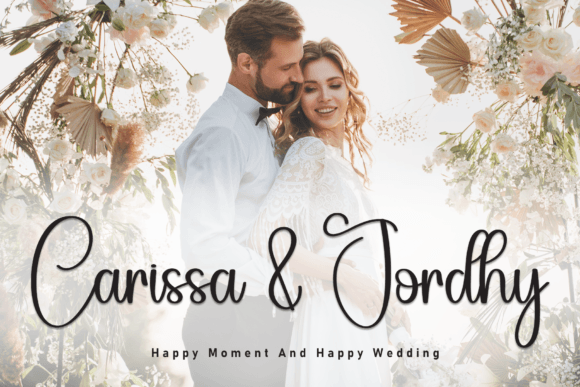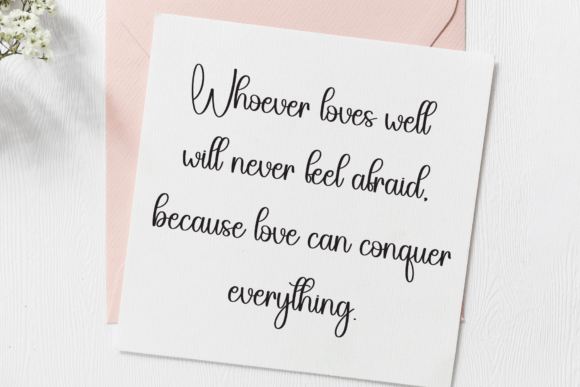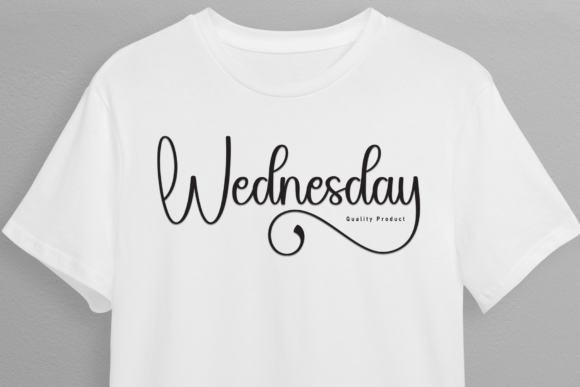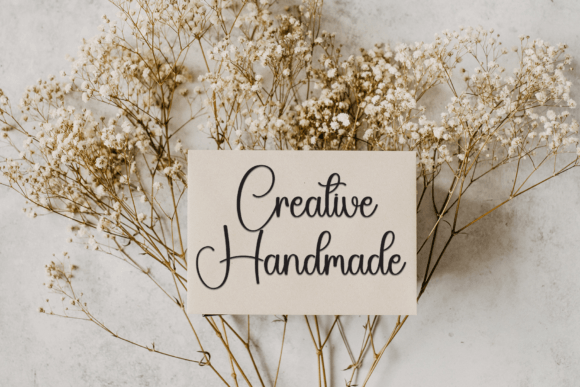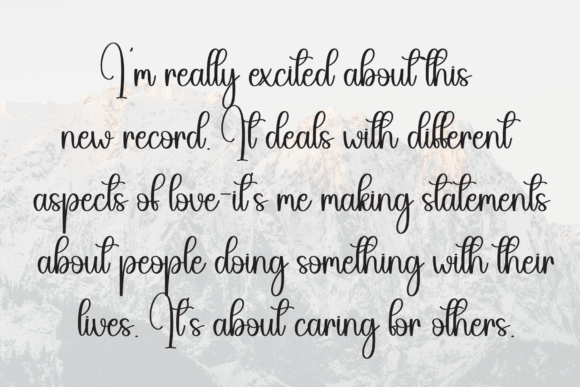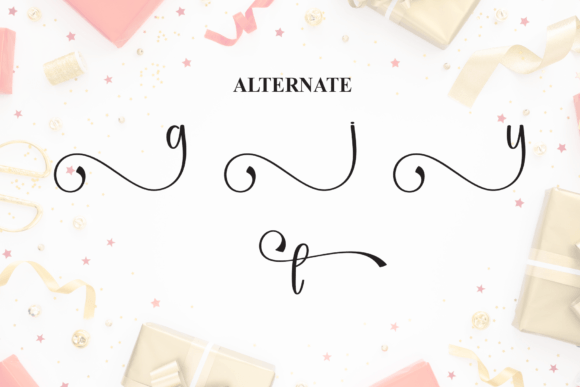
Introducing Birthday Font: The Sweet and Delicate Handwritten Font for Your Special Occasions
Are you a designer or crafter looking for the perfect font to add a touch of romance and personalization to your wedding invitations, cards, or other designs? Look no further than Birthday Font, a sweet and delicate handwritten font that’s sure to make your creations stand out.
What Makes Birthday Font So Special?
Birthday Font is a dainty and joyful font that’s perfect for anyone looking to add a romantic and personalized touch to their designs. Its delicate and cursive script makes it ideal for use on wedding invitations, cards, and other stationery. The font’s sweet and whimsical feel is sure to evoke emotions and create a lasting impression on your recipients.
- Handwritten script: Birthday Font is a beautiful handwritten font that’s designed to look like it was written with love and care.
- Delicate and dainty: The font’s delicate and dainty feel makes it perfect for use on wedding invitations, cards, and other stationery.
- Romantic and personalized: Birthday Font is designed to add a romantic and personalized touch to your designs, making them extra special.
- Versatile: The font is versatile and can be used on a variety of designs, including wedding invitations, cards, and other stationery.
How to Use Birthday Font in Your Designs
Using Birthday Font in your designs is easy and straightforward. Here are a few tips to get you started:
- Pair it with other fonts: Birthday Font looks great when paired with other fonts, such as serif or sans-serif fonts. Experiment with different combinations to find the one that works best for your design.
- Use it for headings and titles: Birthday Font is perfect for use as headings and titles, adding a touch of elegance and sophistication to your designs.
- Add it to your digital designs: Birthday Font can be used in digital designs, such as social media graphics, blog posts, and more.
Why Designers and Crafters Love Birthday Font
Designers and crafters love Birthday Font for many reasons. Here are a few:
- Unique and distinctive: Birthday Font is a unique and distinctive font that’s sure to make your designs stand out.
- High-quality: Birthday Font is a high-quality font that’s designed to produce beautiful results.
Tips for Getting the Most Out of Birthday Font
Here are a few tips for getting the most out of Birthday Font:
- Experiment with different sizes: Experiment with different sizes to find the one that works best for your design.
- Use it for special occasions: Birthday Font is perfect for special occasions, such as weddings, anniversaries, and birthdays.
- Combine it with images: Combine Birthday Font with images to create beautiful and eye-catching designs.
In conclusion, Birthday Font is a beautiful and delicate handwritten font that’s perfect for designers and crafters looking to add a touch of romance and personalization to their designs. With its sweet and whimsical feel, it’s sure to evoke emotions and create a lasting impression on your recipients. Whether you’re designing wedding invitations, cards, or other stationery, Birthday Font is the perfect choice.